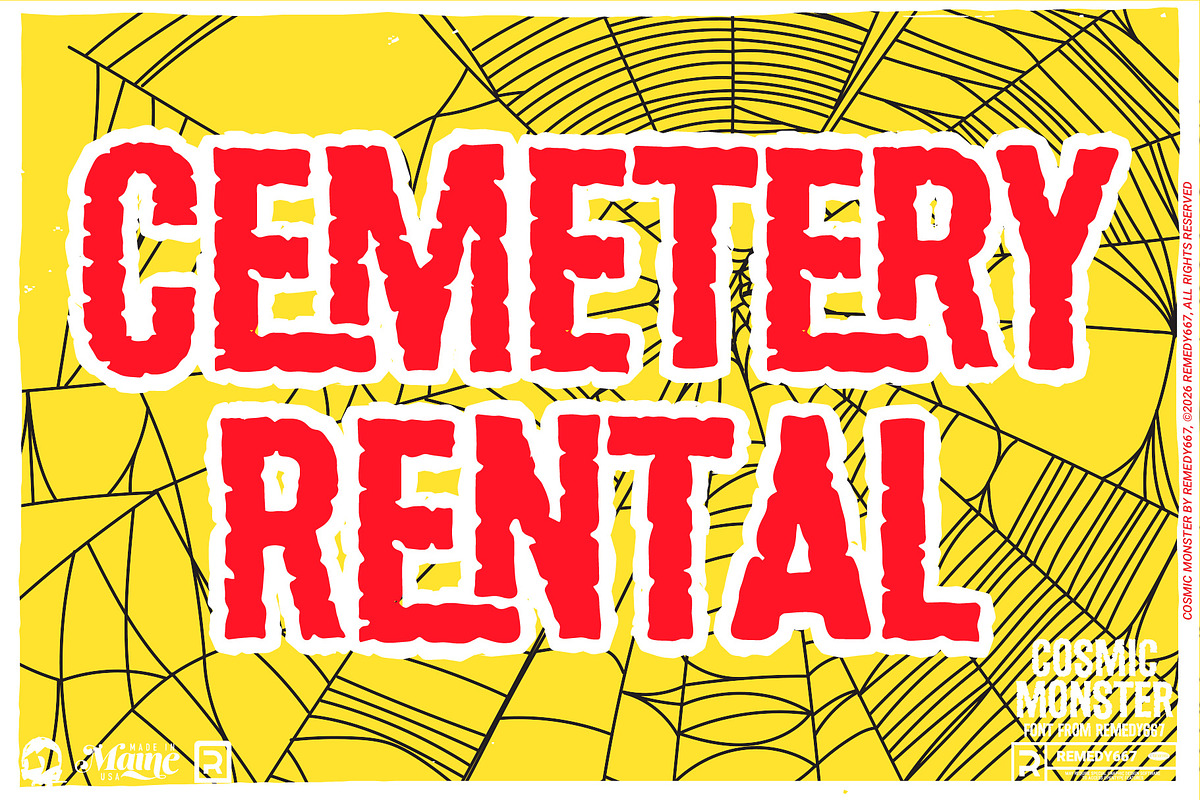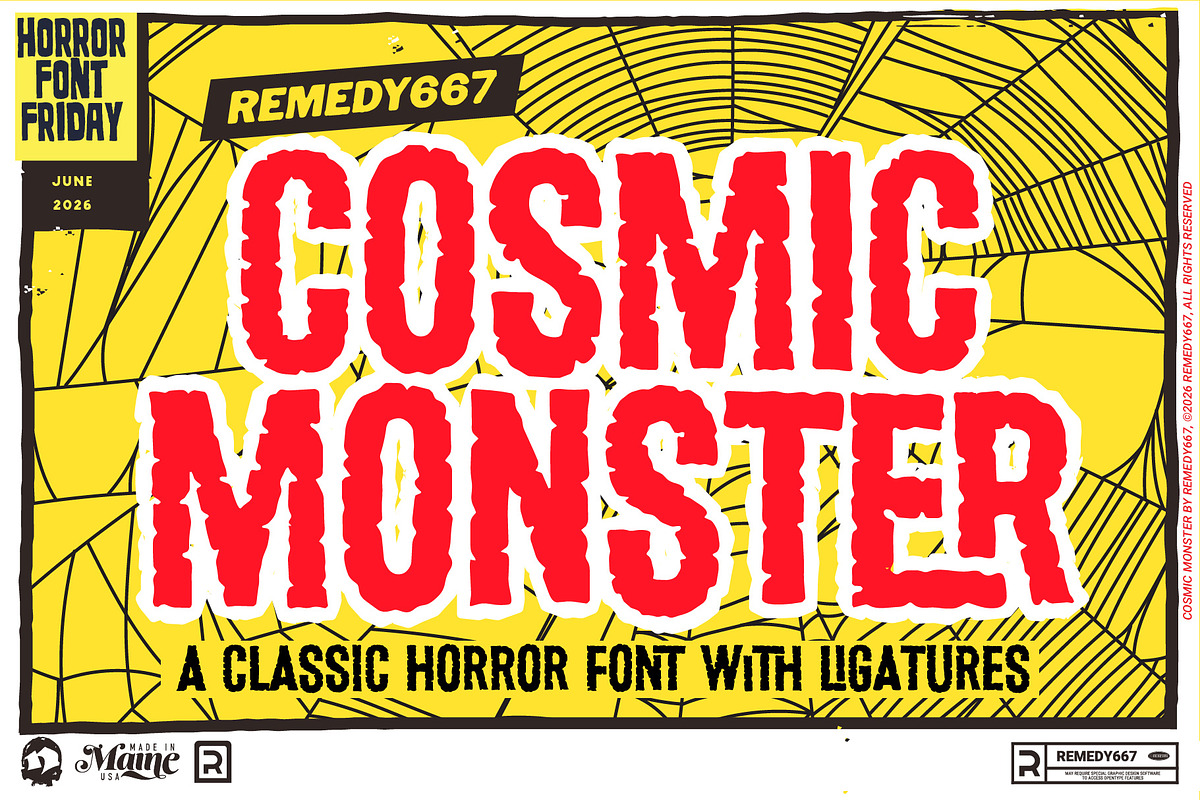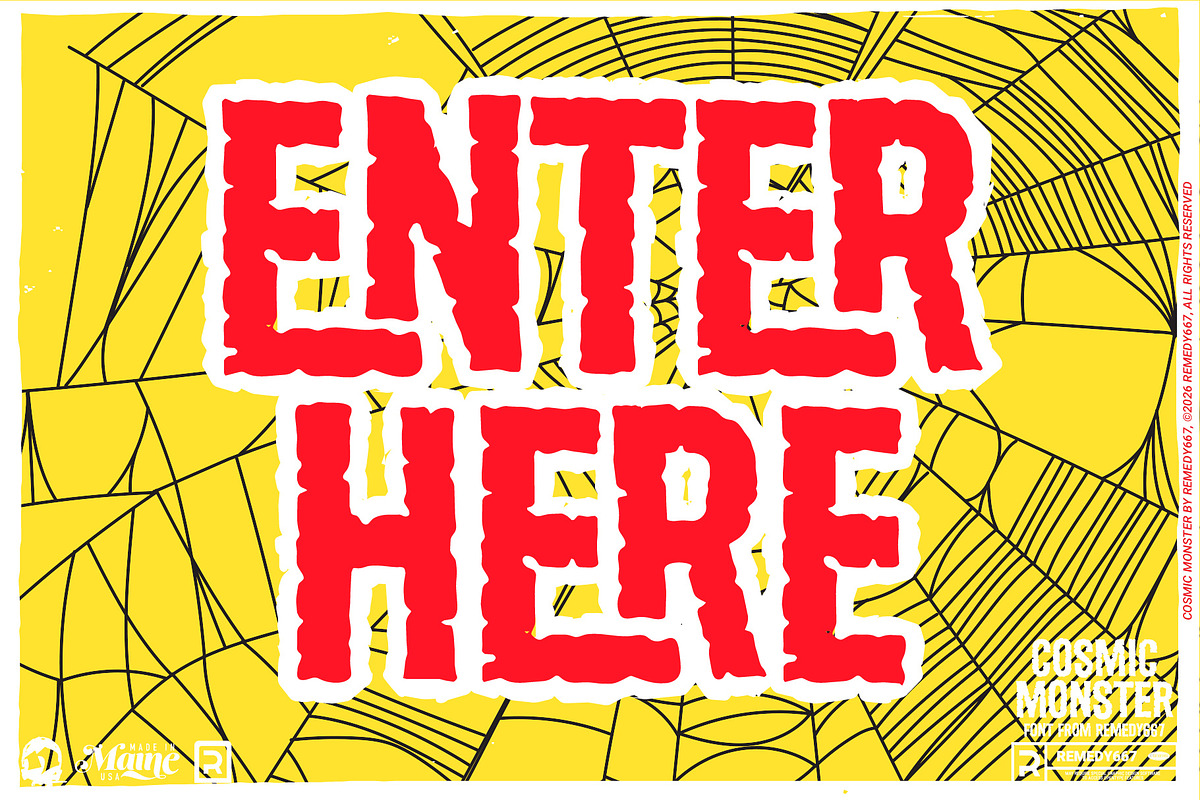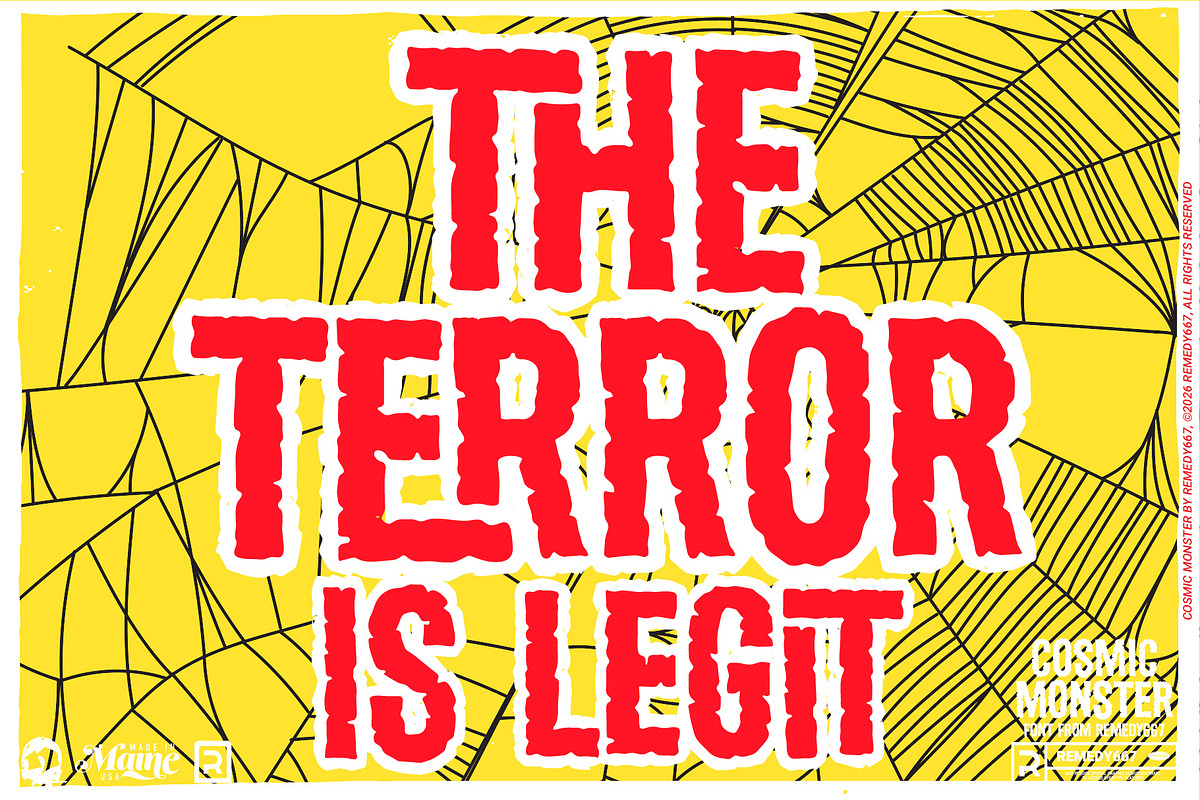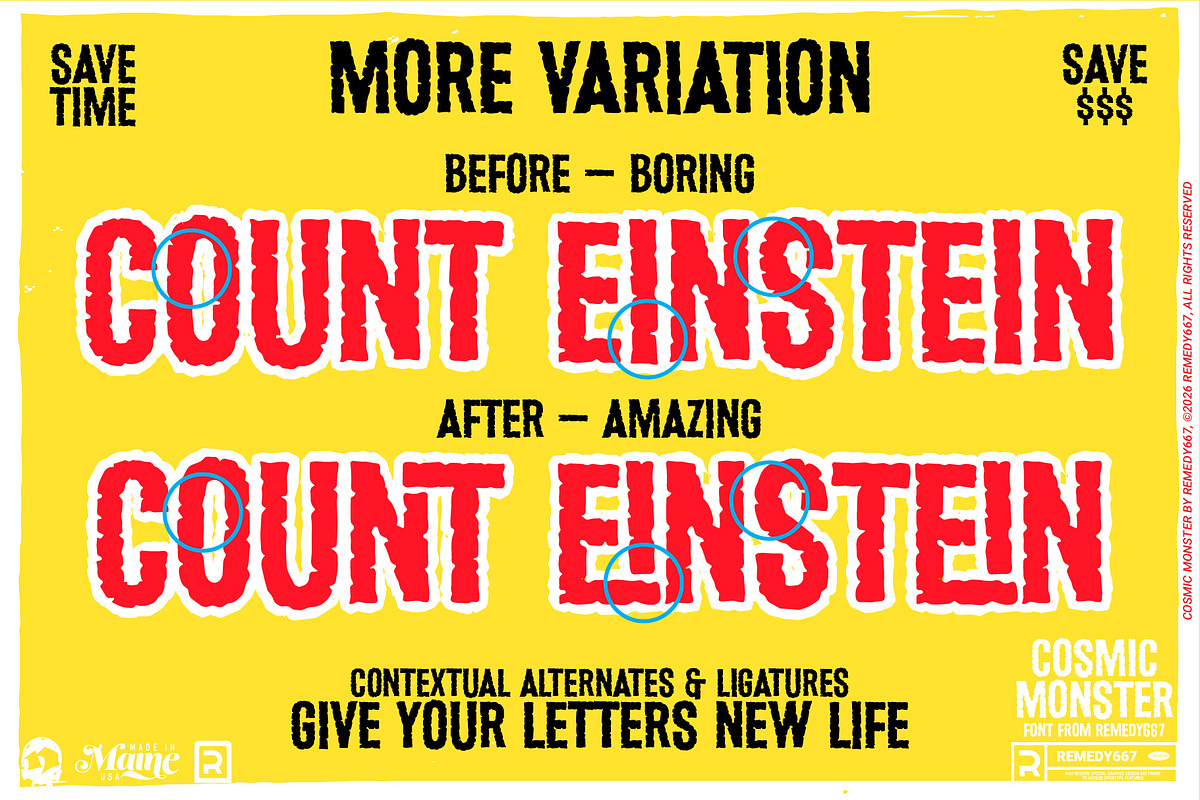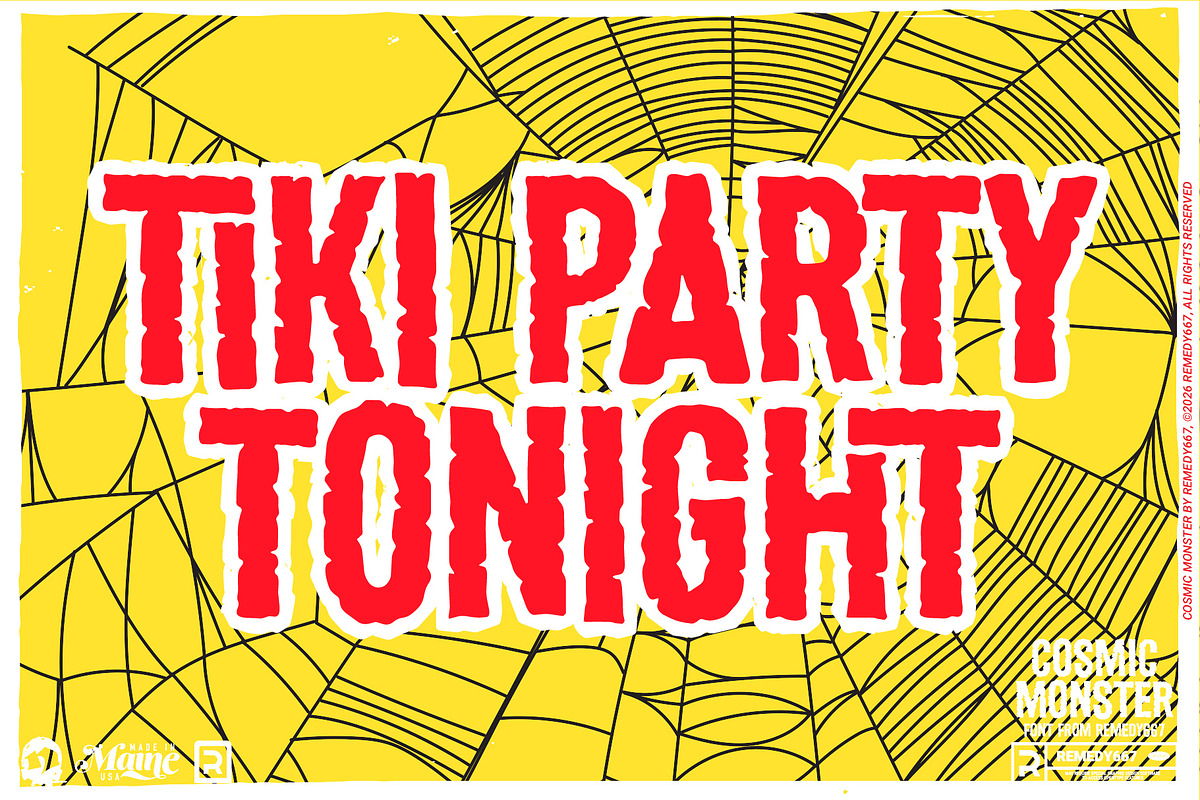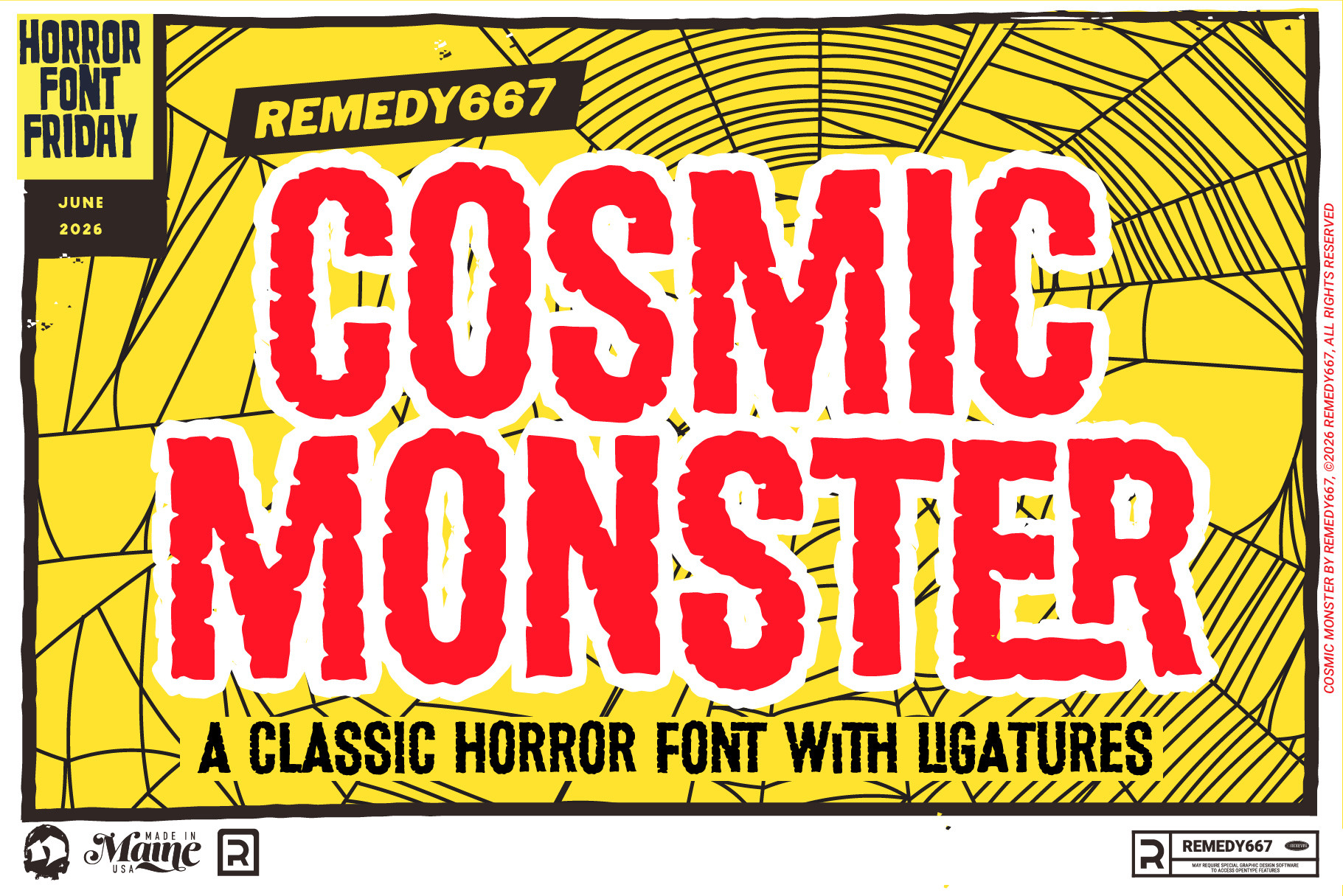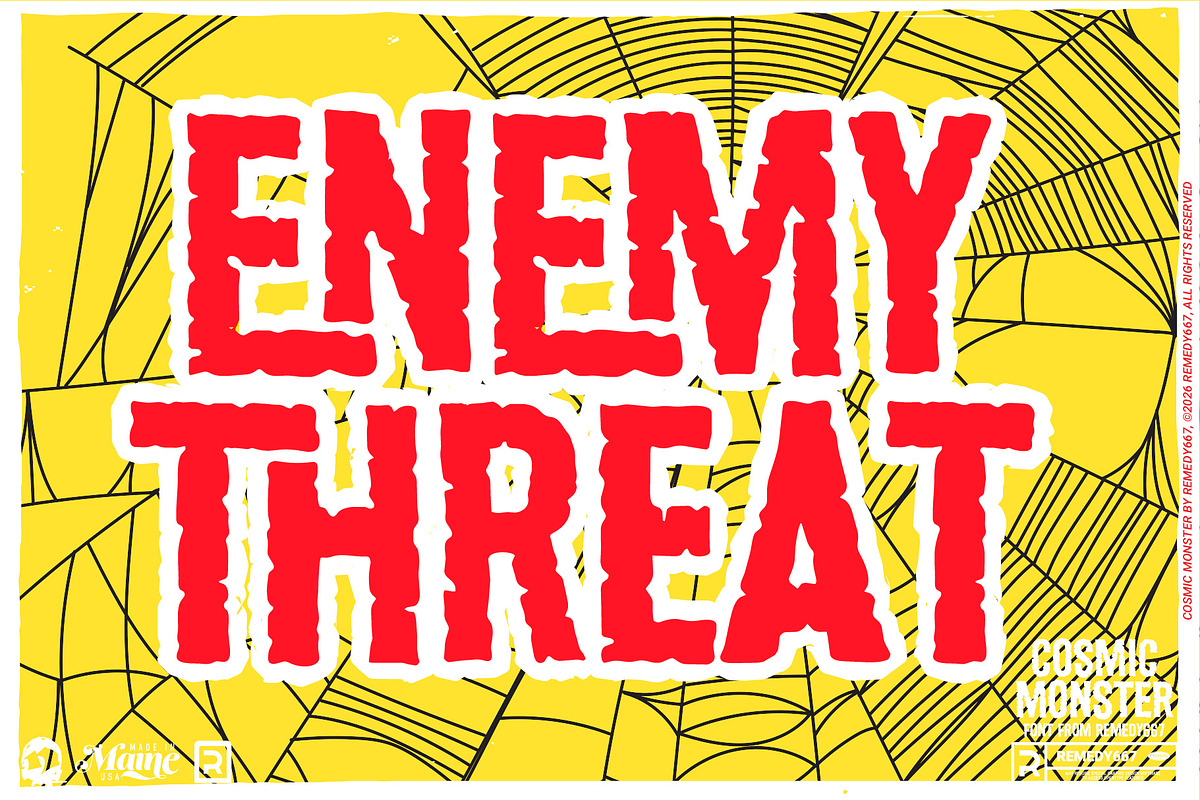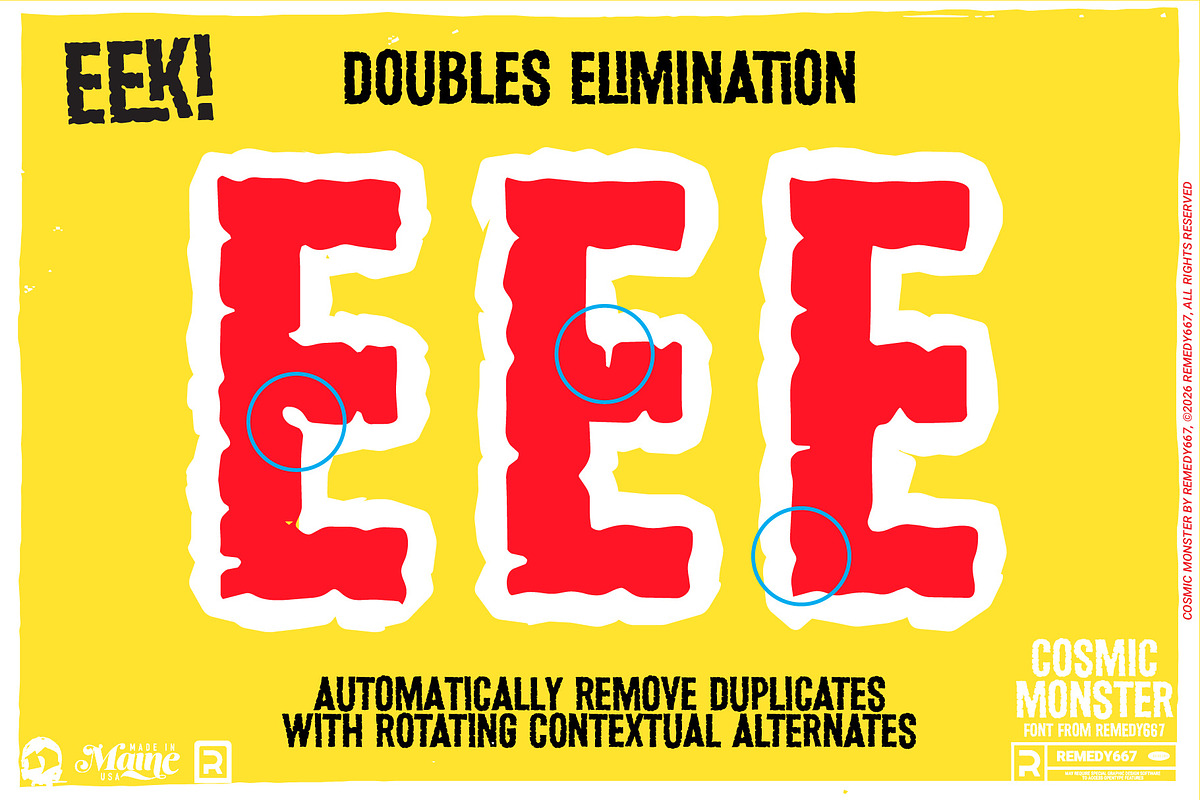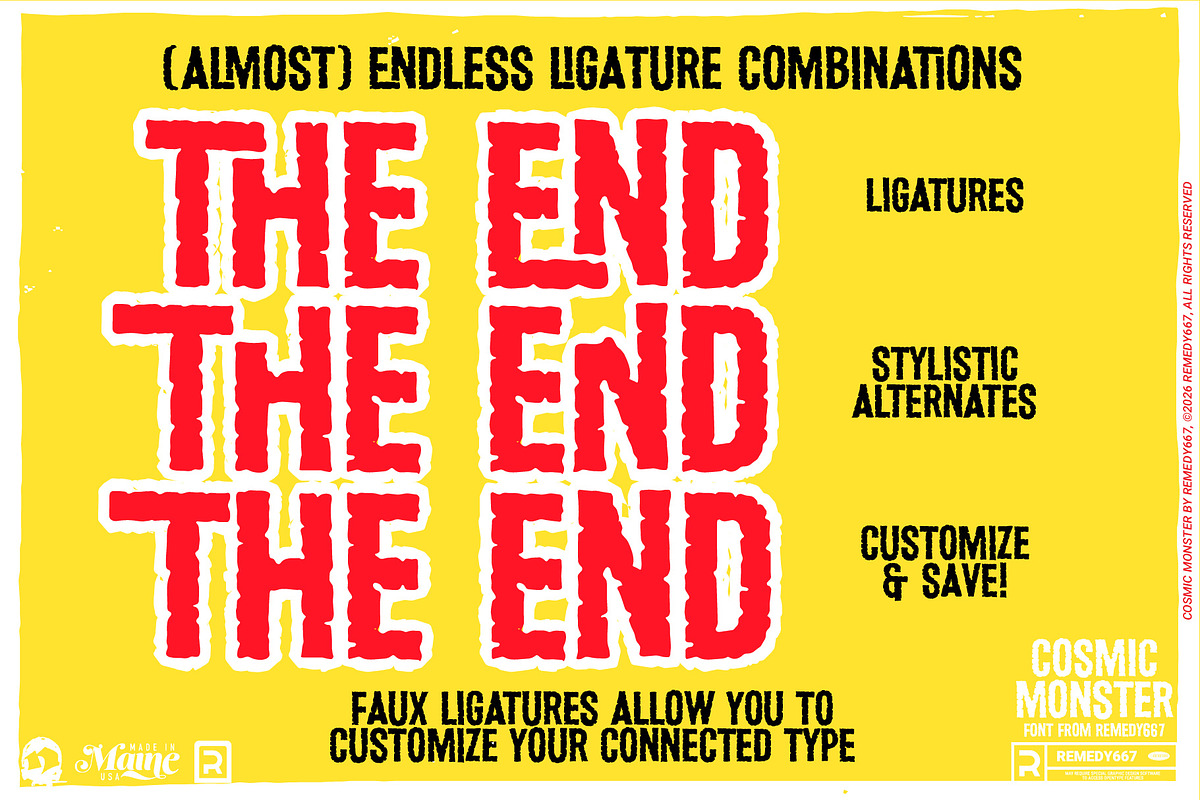
Cosmic Monster - Faux Ligature Font
From beyond the stars comes Cosmic Monster, a typeface so strange it could only have come from a midnight creature feature! Cosmic Monster is inspired by the sensational lettering from drive-in newspaper ads for Cosmic Monsters, this atomic-age terror crackles with retro sci-fi energy, charm, and interplanetary doom.
Whether you’re mad science involves working with giant bugs, flying saucers, tiki lounge marketing, rockabilly posters, classic horror mayhem, or anything in between… Cosmic Monster delivers a bold blast from the golden age of monster movies. Its rotating characters, and clever faux ligatures give designers plenty of control while keeping every headline fresh and alive.
Full character set with multilingual support for worldwide invasions
Rotating characters for natural doubles elimination and variation
Make your own faux ligatures for enhanced control and display versatility